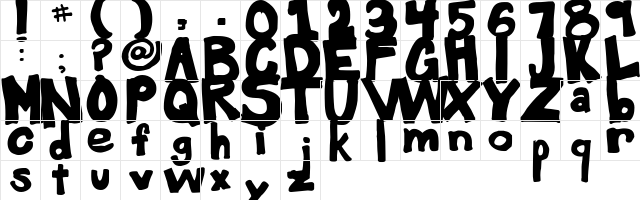
Yard Sale Regular
DesignerJennifer Heinicke
Design Context for Yard Sale Typeface
Yard Sale is a composed and adaptable typeface that performs quietly and consistently across a wide range of design contexts.